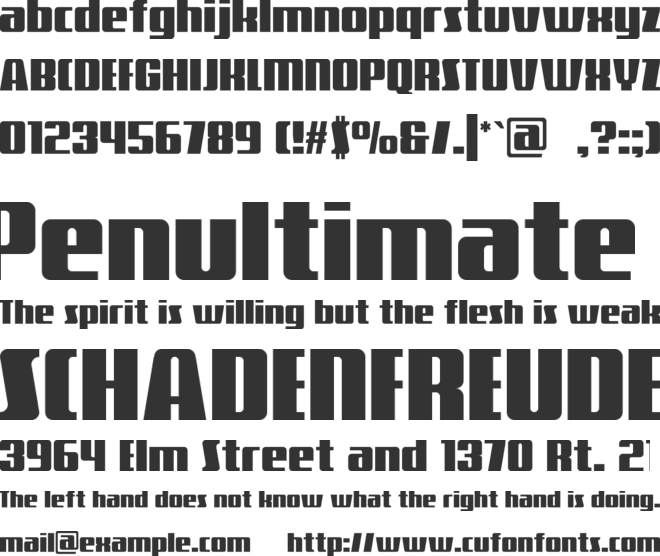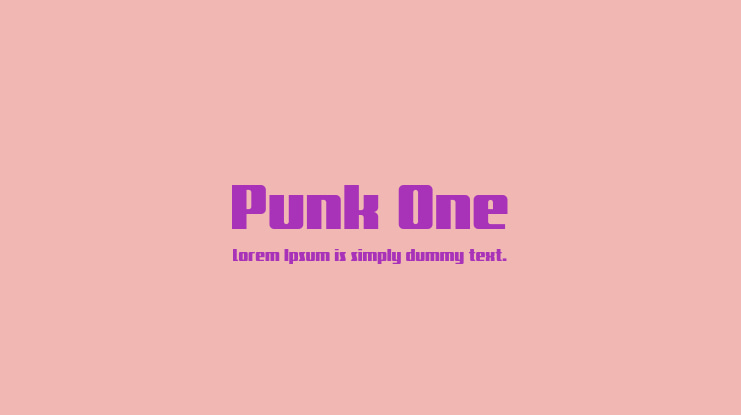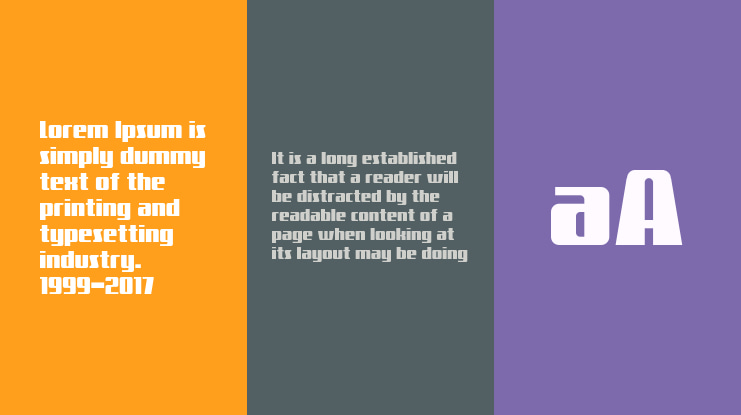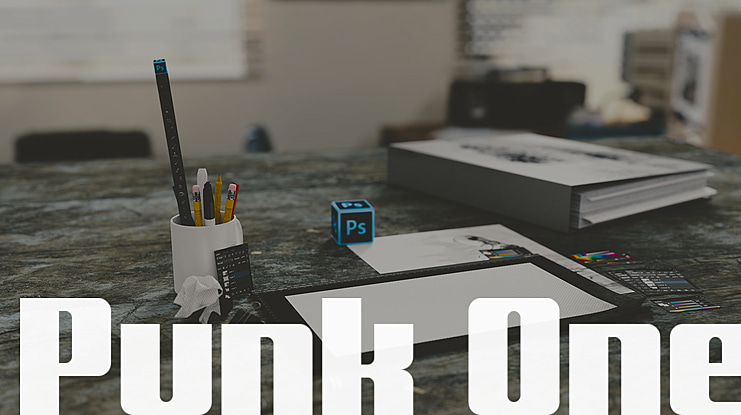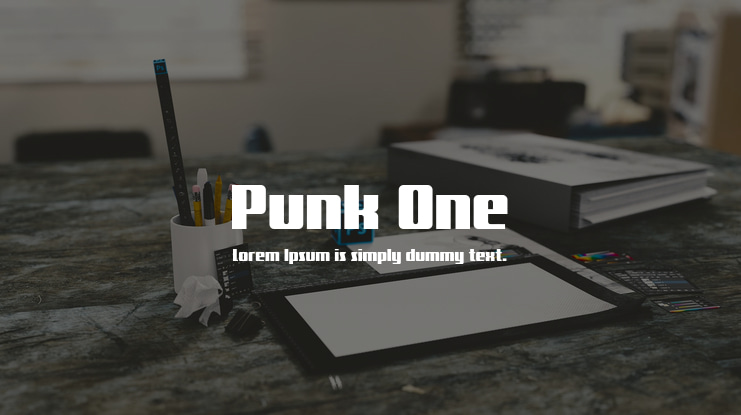
Punk One Font
Punk One is Heavy Modern sans serif with a strongest slant curve touch. An older brother of the original Plusminus font made by V. Sarela.